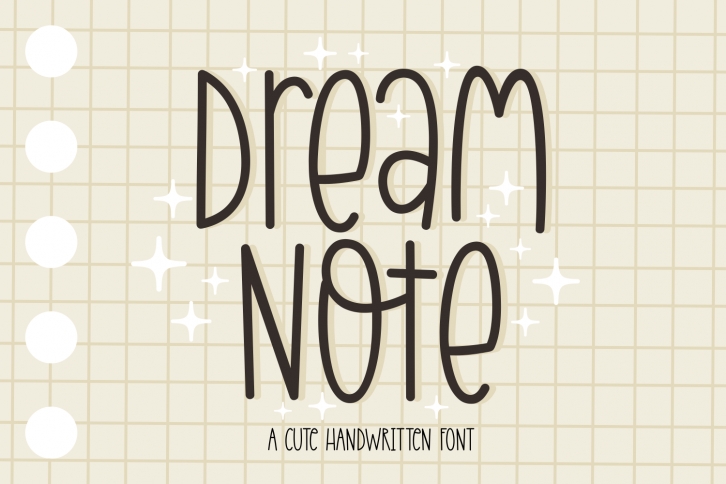
Dream Note is a clean and thin lettered display font. This original look will appeal to a wide range of crafty ideas, from letterheads and titles, to stationery.